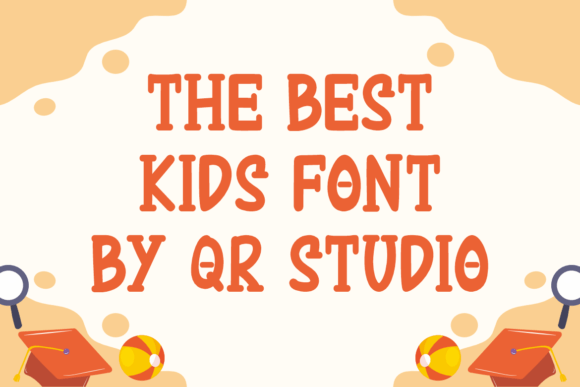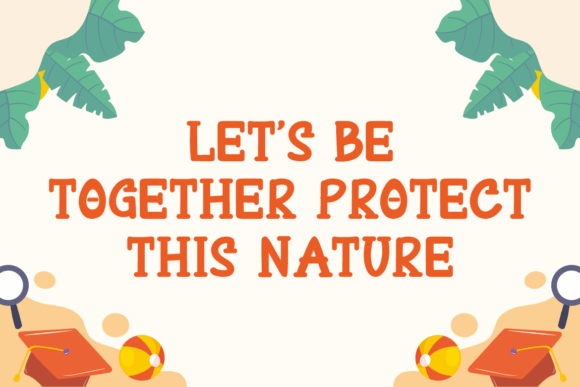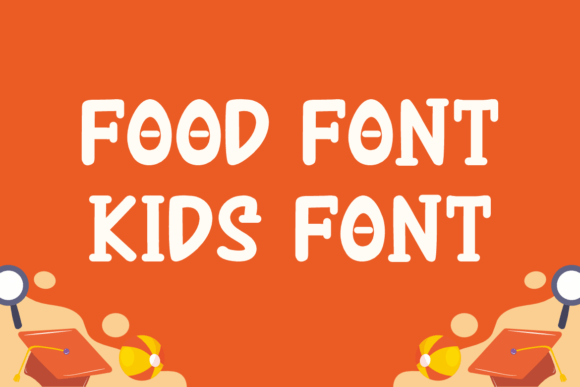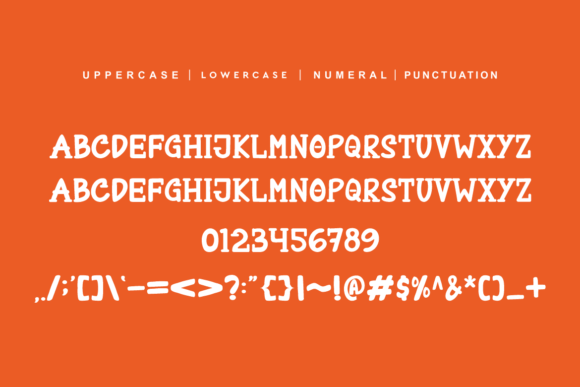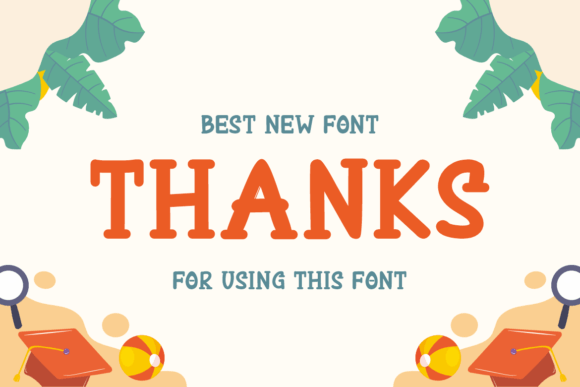
Unleash the Magic with Cool Kidszo Font: A Modern yet Whimsical Display Font
Are you tired of using the same old fonts in your designs? Do you want to add a touch of magic and whimsy to your creations? Look no further than the Cool Kidszo font! This incredibly cool and unique display font is sure to immerse your designs into a magical world. In this article, we’ll take a closer look at the Cool Kidszo font, its features, and how you can use it to take your designs to the next level.
What is Cool Kidszo Font?
Cool Kidszo is a modern yet whimsical display font that is perfect for designers and crafters who want to add a touch of personality to their creations. Its unique and quirky style makes it stand out from other fonts, and its versatility ensures that it can be used in a wide range of design projects. Whether you’re creating a logo, a poster, or a social media graphic, Cool Kidszo is sure to make your design pop.
Features of Cool Kidszo Font
So, what makes Cool Kidszo font so special? Here are just a few of its key features:
- Unique and Quirky Style: Cool Kidszo has a one-of-a-kind style that is sure to grab attention. Its modern yet whimsical design makes it perfect for designers who want to add a touch of personality to their creations.
- High-Quality Design: The Cool Kidszo font is designed with high-quality and precision, ensuring that it looks great in any design project.
- Versatile: Cool Kidszo is a versatile font that can be used in a wide range of design projects, from logos and posters to social media graphics and more.
- Easy to Read: Despite its quirky style, Cool Kidszo is easy to read, making it perfect for designs where you want to make a statement without sacrificing legibility.
How to Use Cool Kidszo Font in Your Designs
Now that we’ve covered the features of Cool Kidszo font, let’s take a look at how you can use it in your designs. Here are a few ideas to get you started:
- Logos: Cool Kidszo is perfect for creating unique and memorable logos that will help your brand stand out.
- Posters: Add a touch of whimsy to your posters with Cool Kidszo font. It’s perfect for creating eye-catching headlines and titles.
- Social Media Graphics: Use Cool Kidszo to create social media graphics that will grab attention and help your brand stand out.
- Crafting Projects: Cool Kidszo is also perfect for crafters who want to add a touch of personality to their projects, such as handmade cards, scrapbooking, and more.
Tips for Using Cool Kidszo Font
Here are a few tips for using Cool Kidszo font in your designs:
- Experiment with Different Sizes: Cool Kidszo looks great in a variety of sizes, so don’t be afraid to experiment to find the perfect size for your design.
- Pair it with Other Fonts: Cool Kidszo pairs well with other fonts, so try pairing it with a sans-serif font for a contrasting look.
- Use it for Headlines: Cool Kidszo is perfect for headlines and titles, so use it to make a statement in your designs.
In conclusion, Cool Kidszo font is an incredibly cool and unique display font that is sure to immerse your designs into a magical world. Its modern yet whimsical style makes it perfect for designers and crafters who want to add a touch of personality to their creations. With its high-quality design, versatility, and ease of use, Cool Kidszo is a must-have font for any designer or crafter looking to take their designs to the next level.